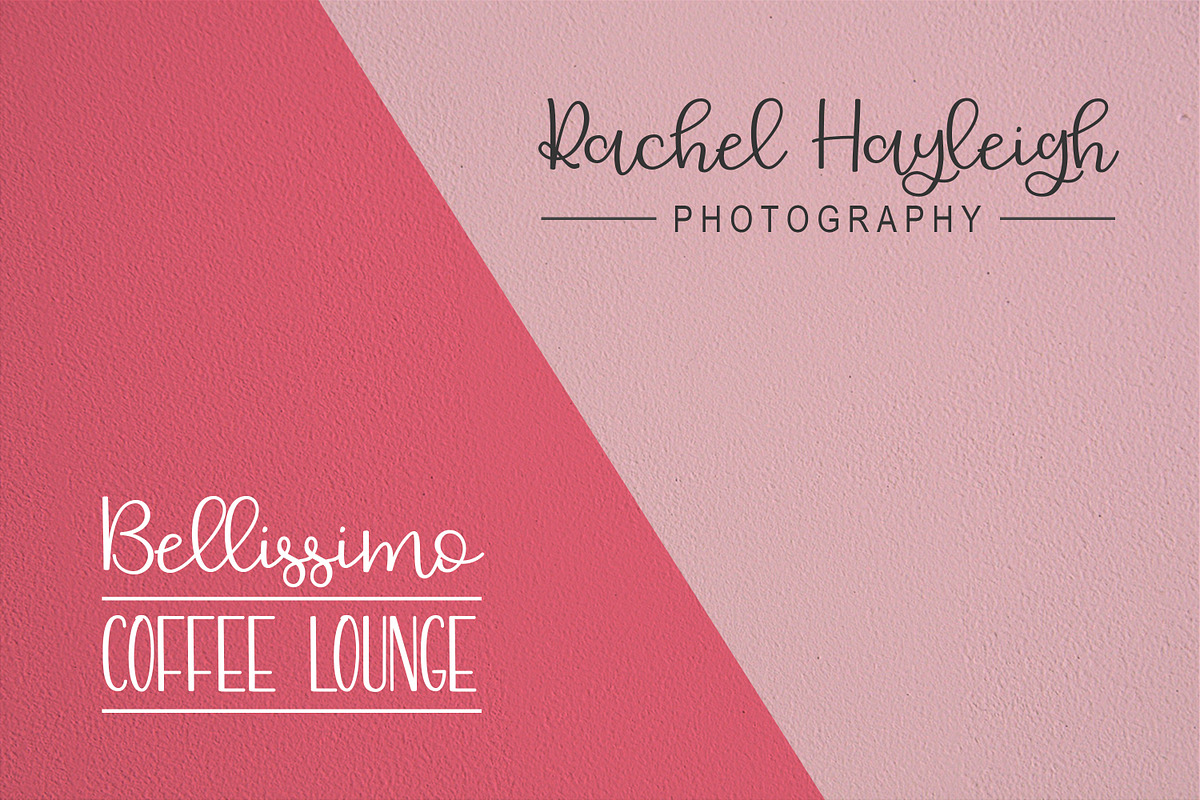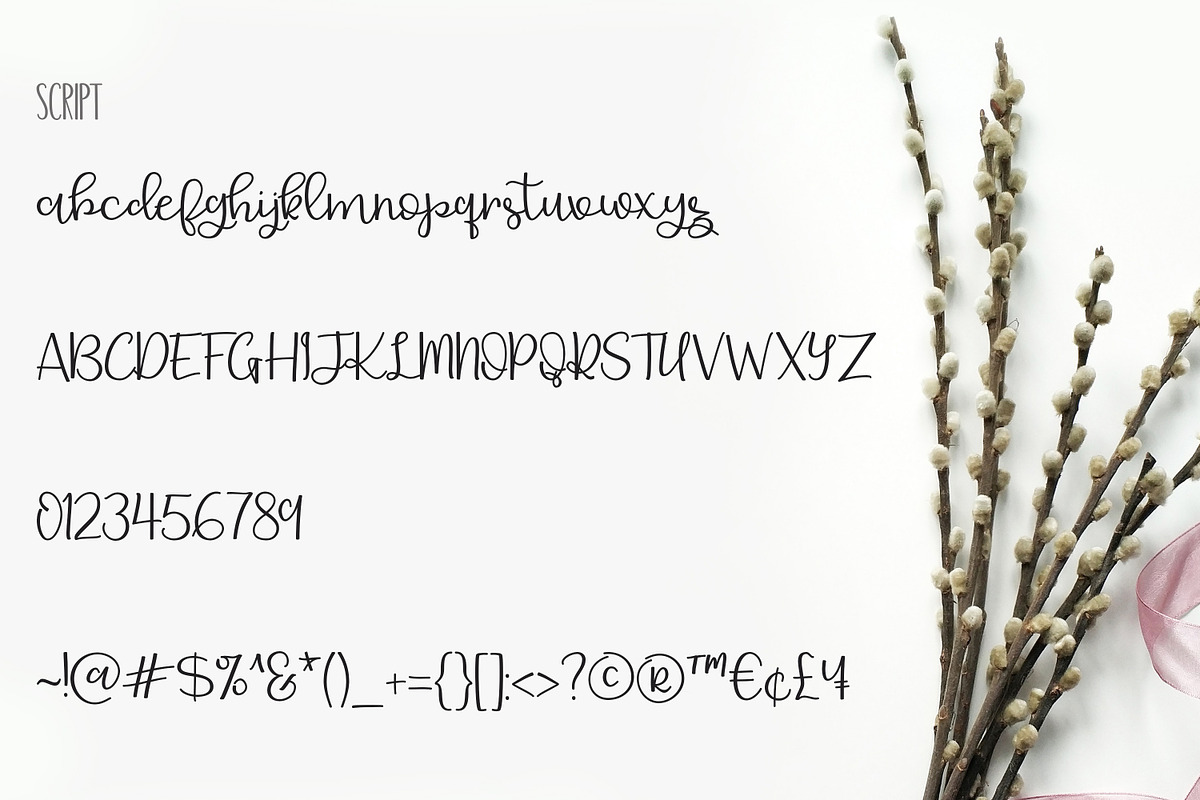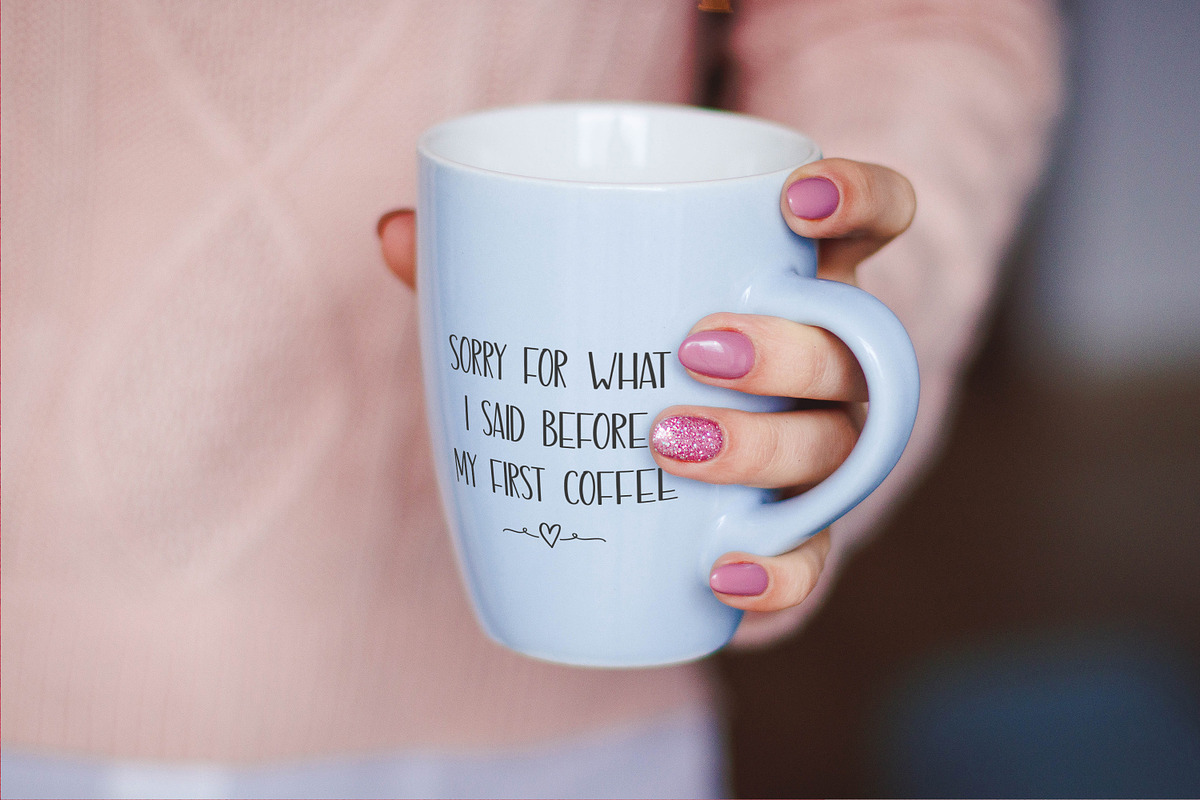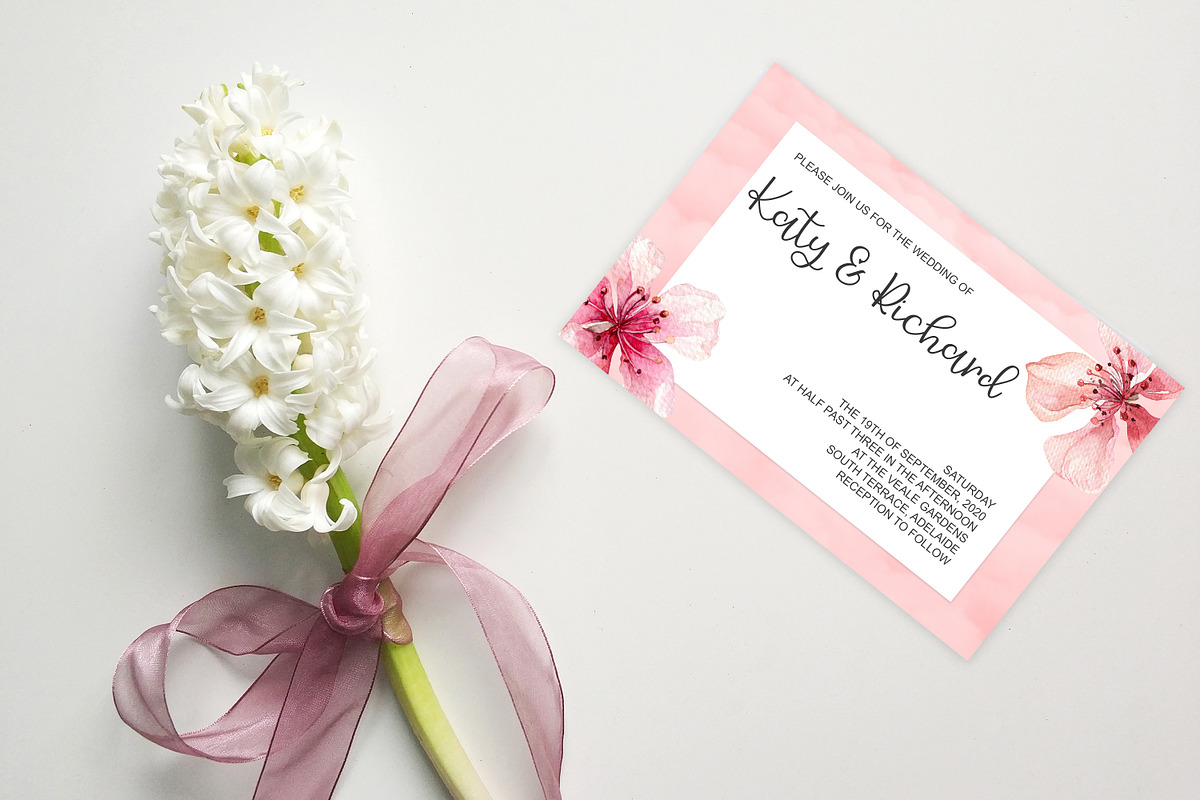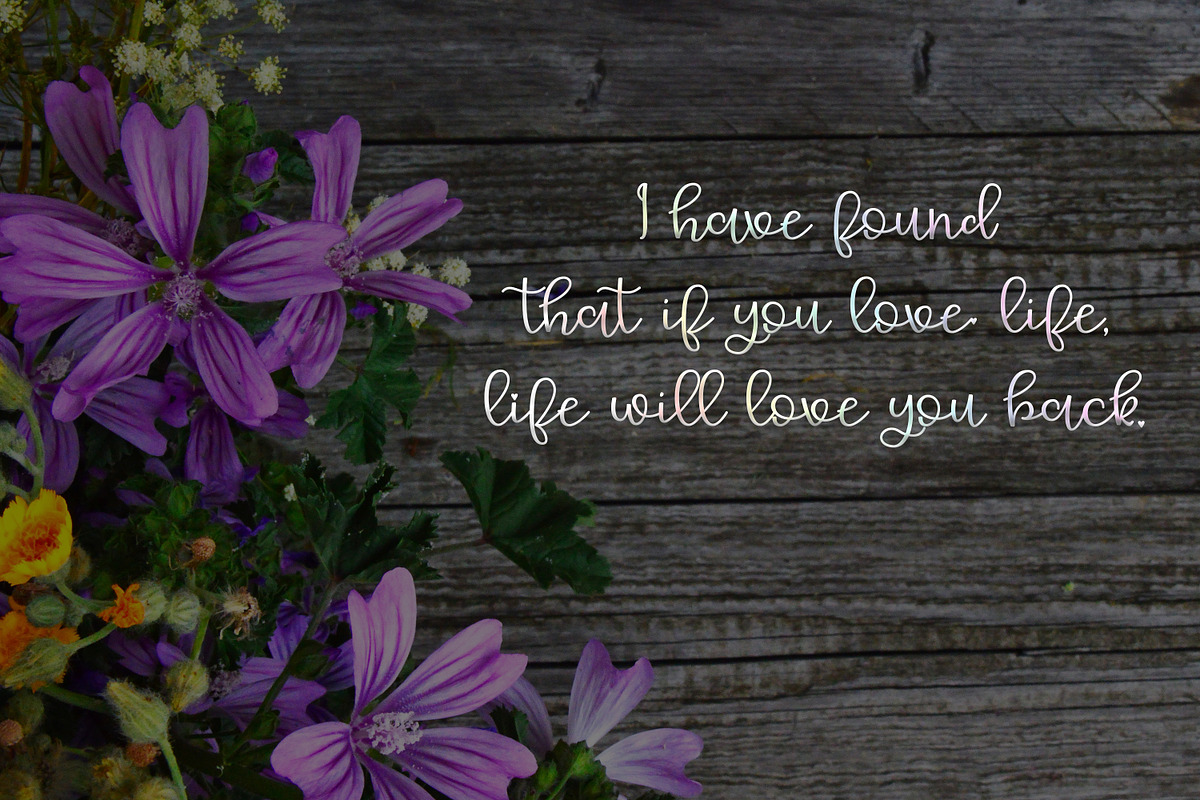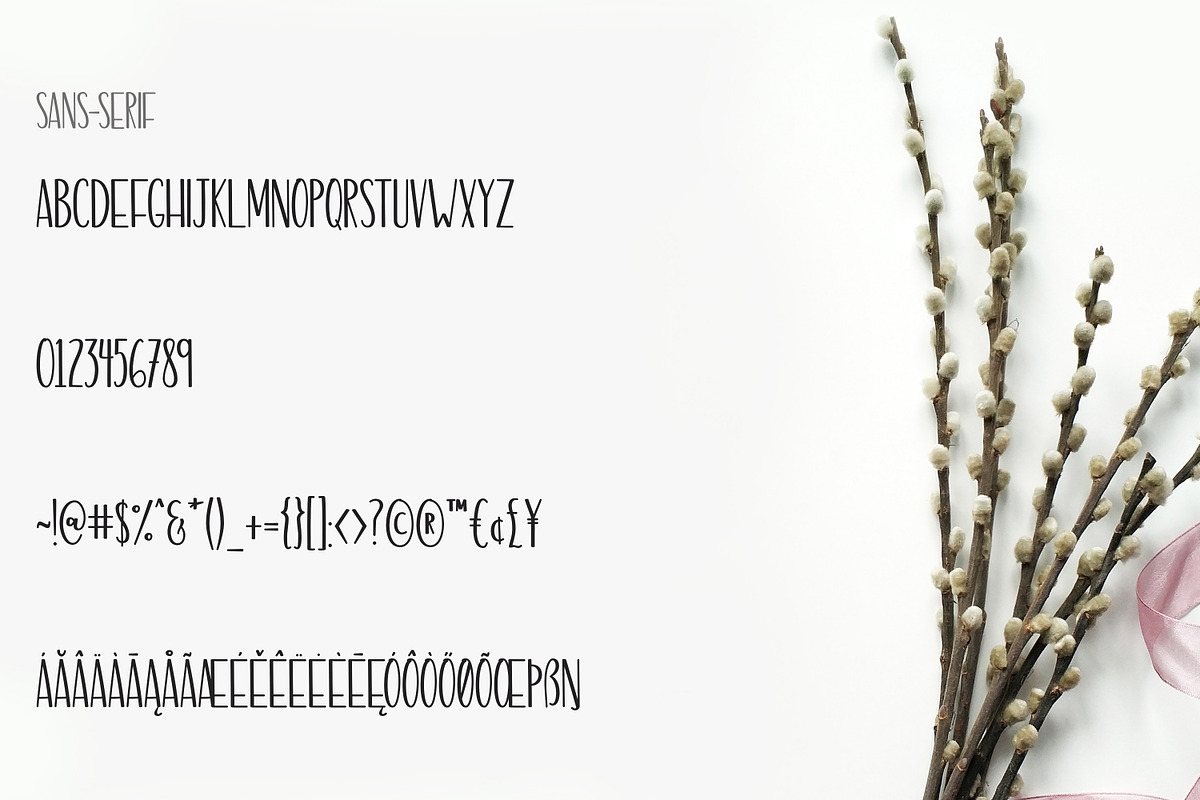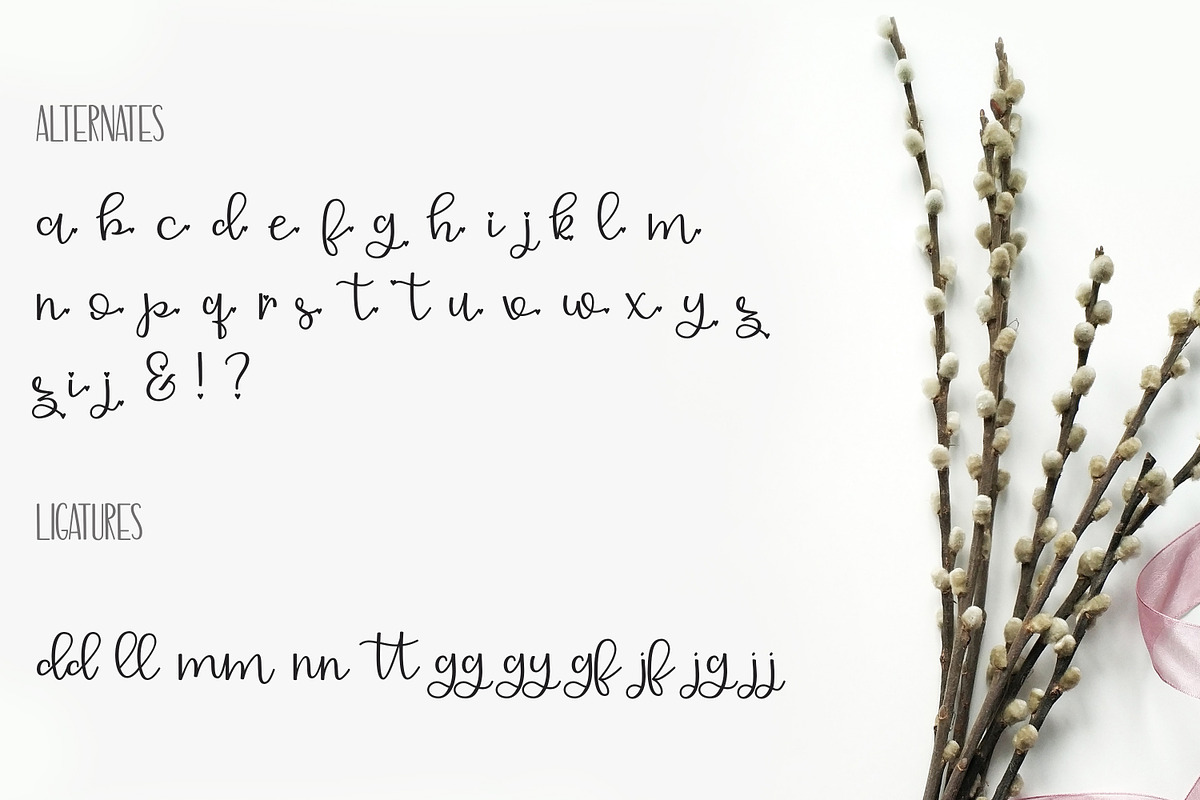
Delicate Romance Font Duo
Introducing Delicate Romance, a handwritten romantic font duo consisting of a script and a sans-serif.
The Delicate Romance Script includes stylistic alternates for the lowercase letters, ampersand and period. Also, included in the private use area, there are heart doodles and swashes.
This font duo is great for creating logos, invitations, SVGs and much more.
- The Delicate Romance Script includes stylistic alternates for the lowercase letters, ampersand and period.
- Also, included in the private use area, there are heart doodles and swashes.
- The Delicate Romance Sans consists of uppercase letters and includes language support.